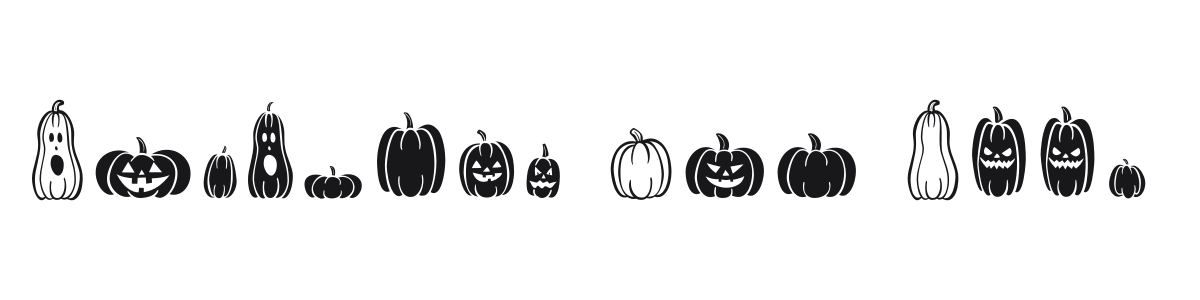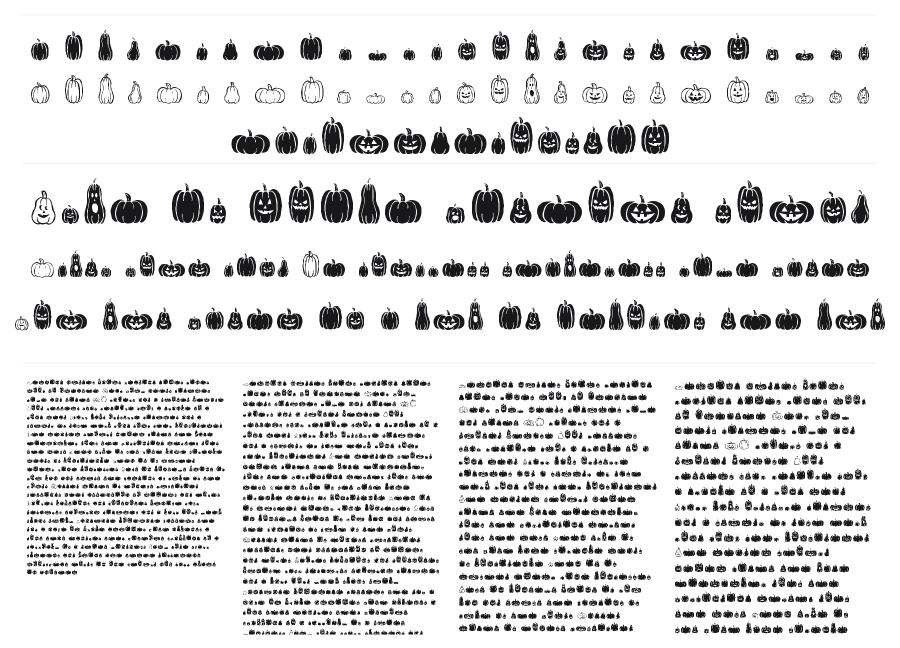
Pumpkins Are Cool
Pumpkins Are Cool is a Halloween dingbats font built entirely from pumpkin and jack-o-lantern silhouettes. The set spans plain gourds to grinning carved faces in a range of shapes and proportions. A handy toolkit for seasonal graphics, party materials, or any project that needs a spooky-cute touch.